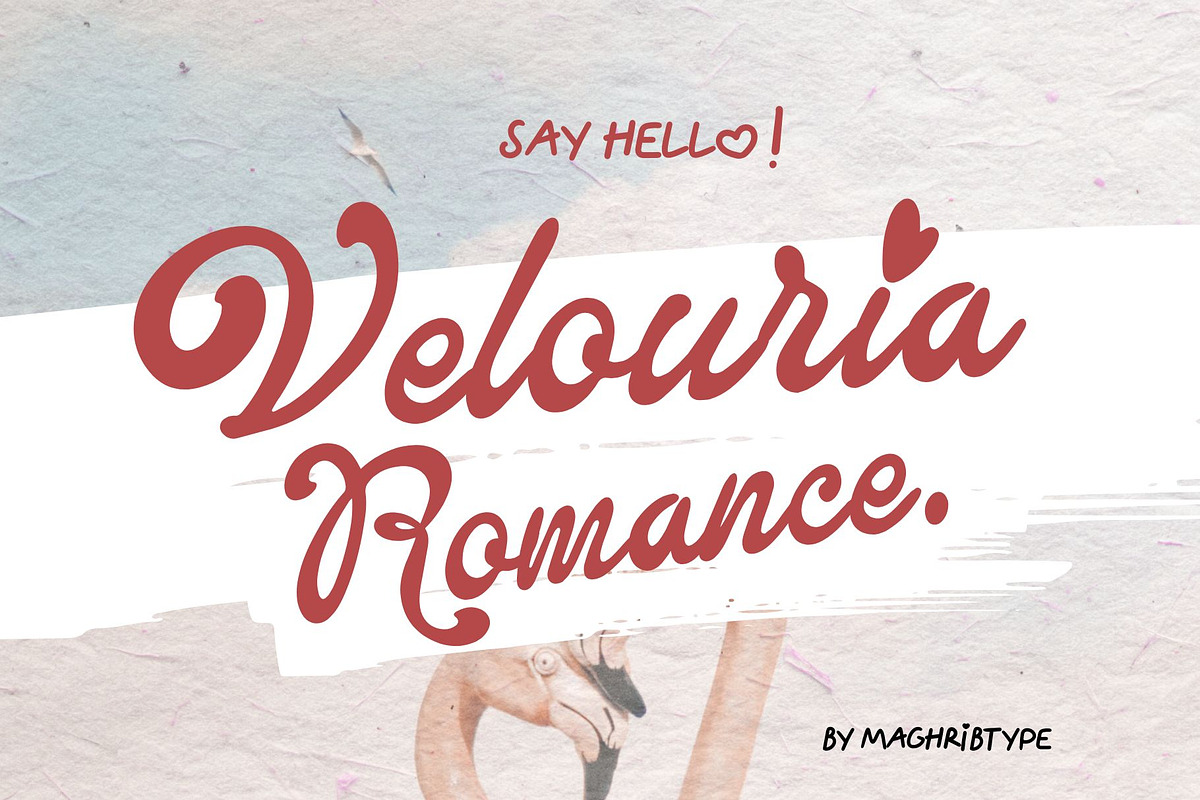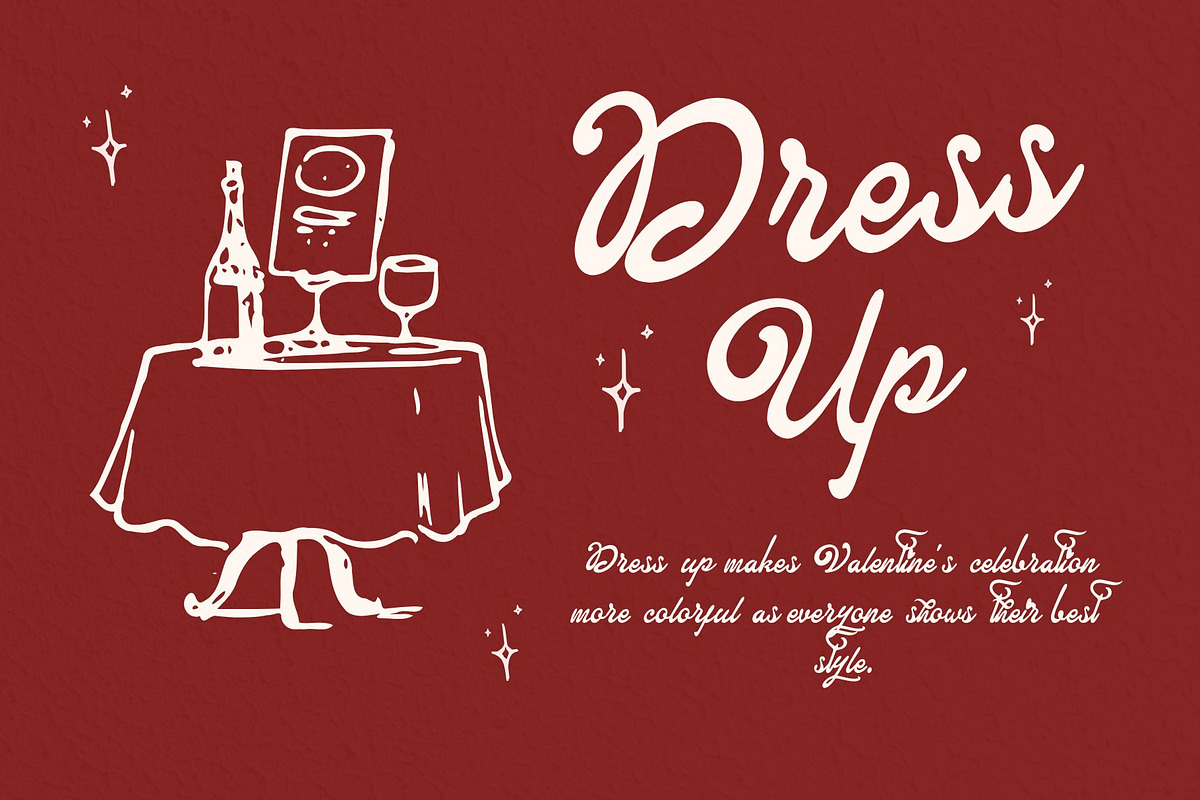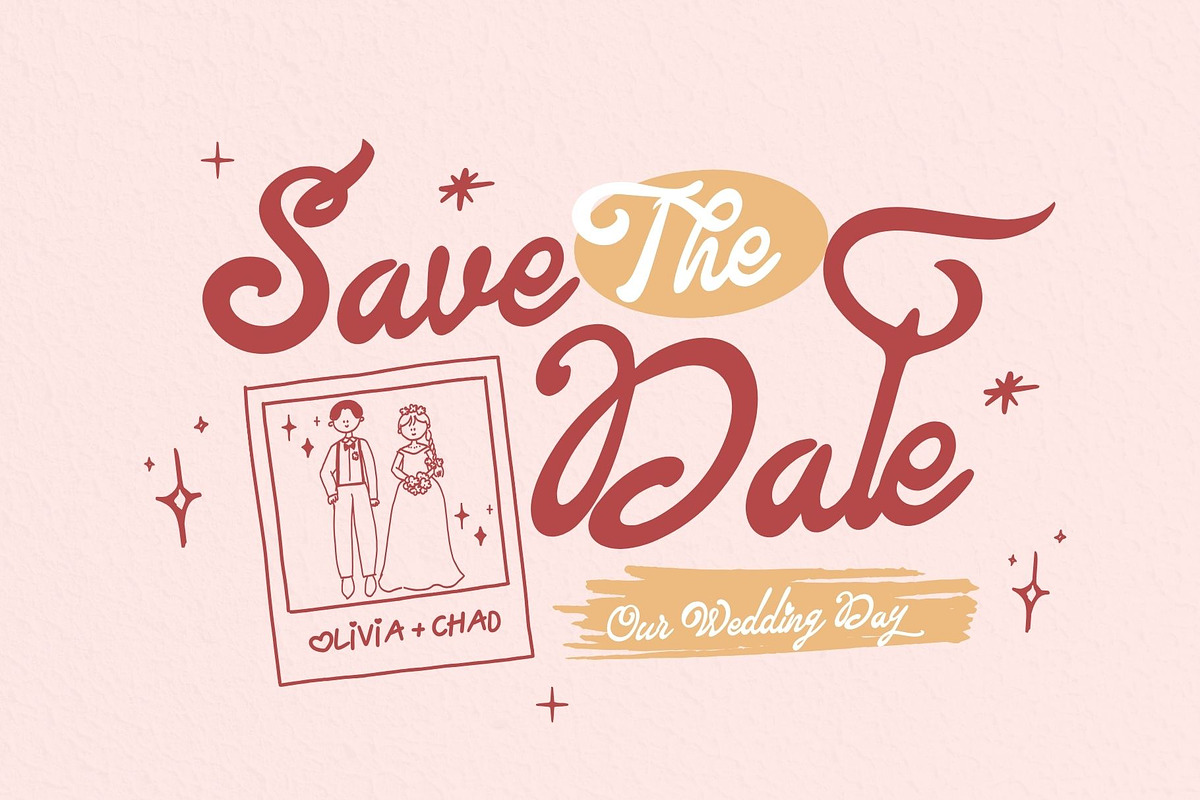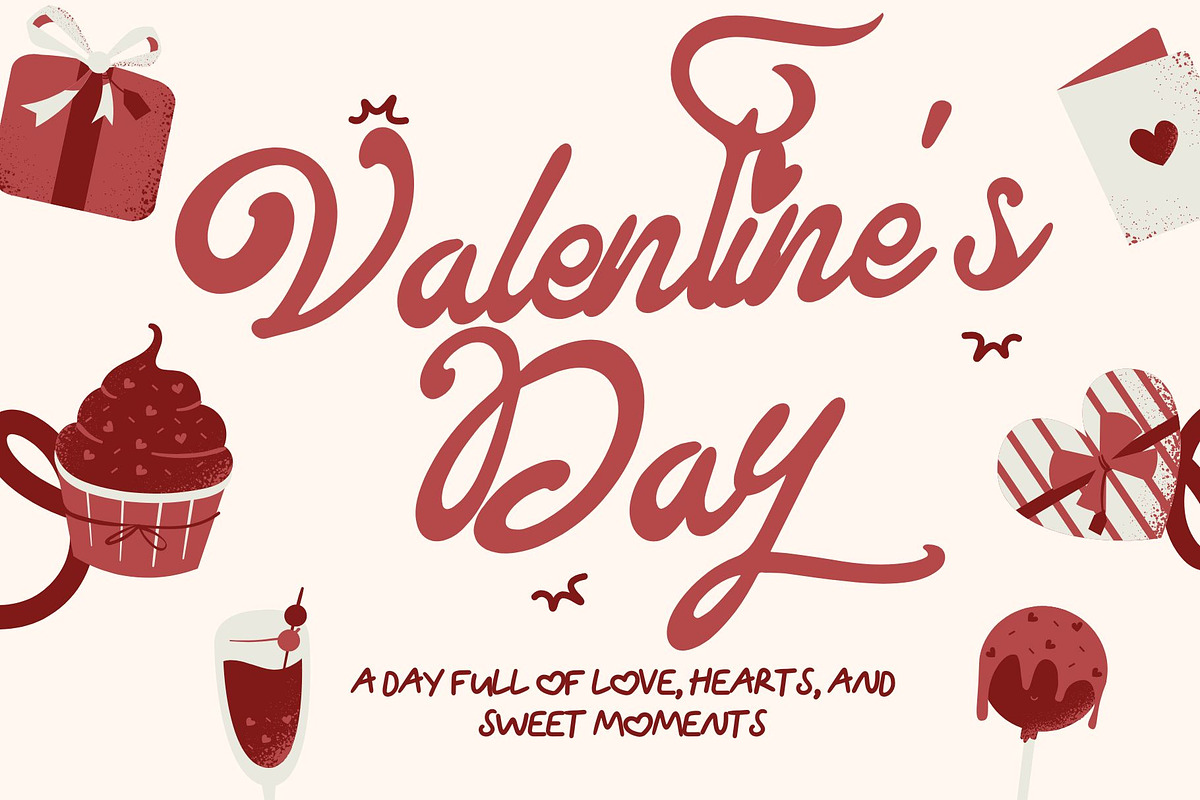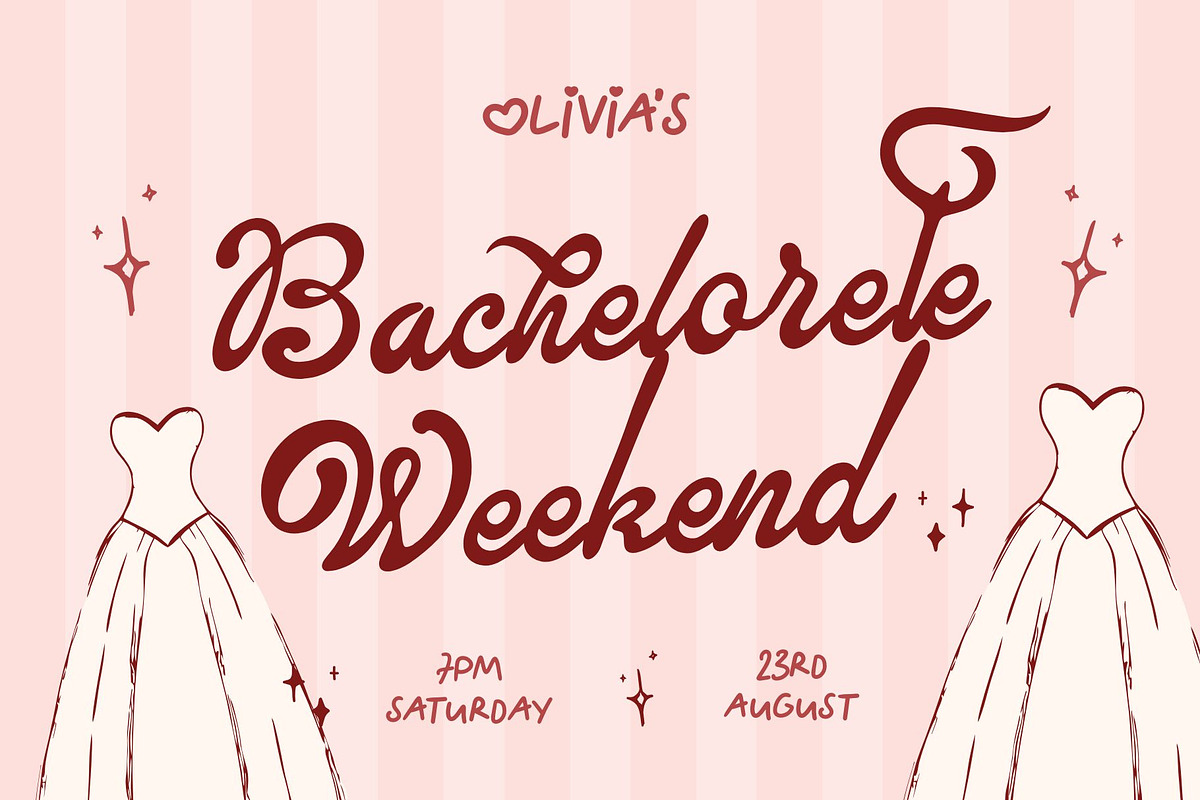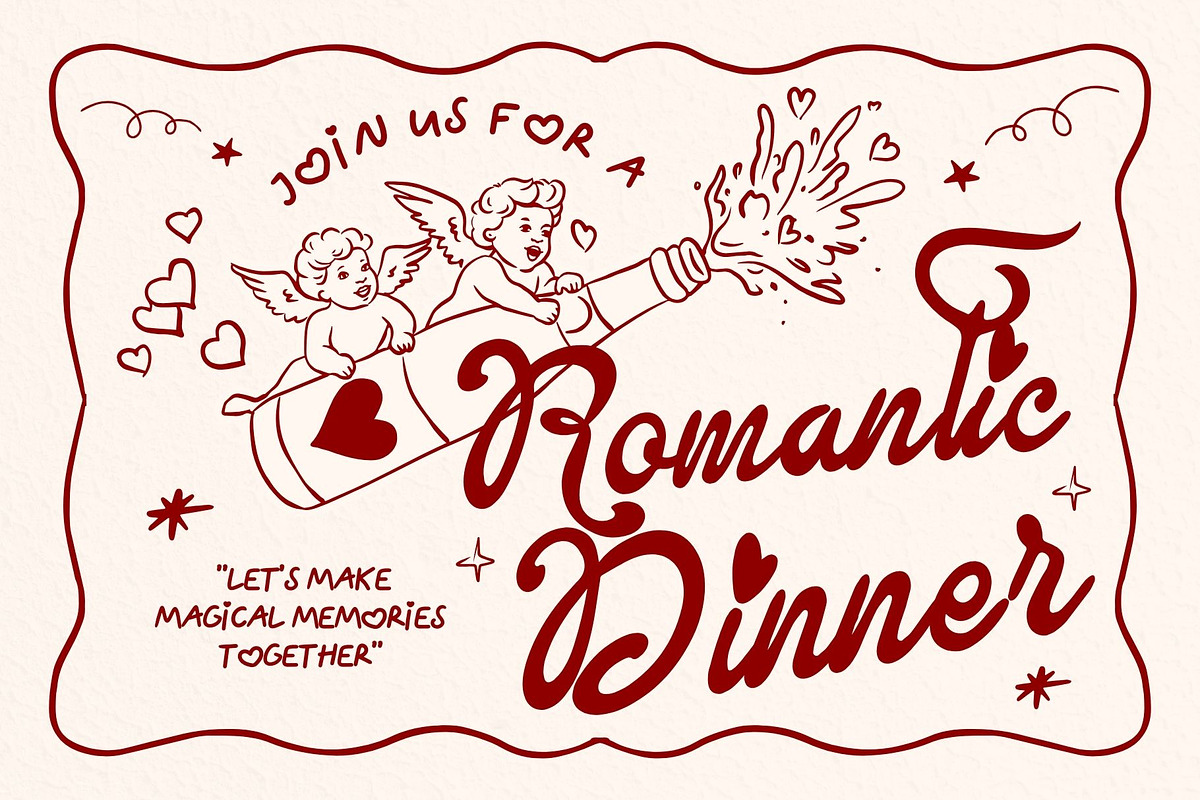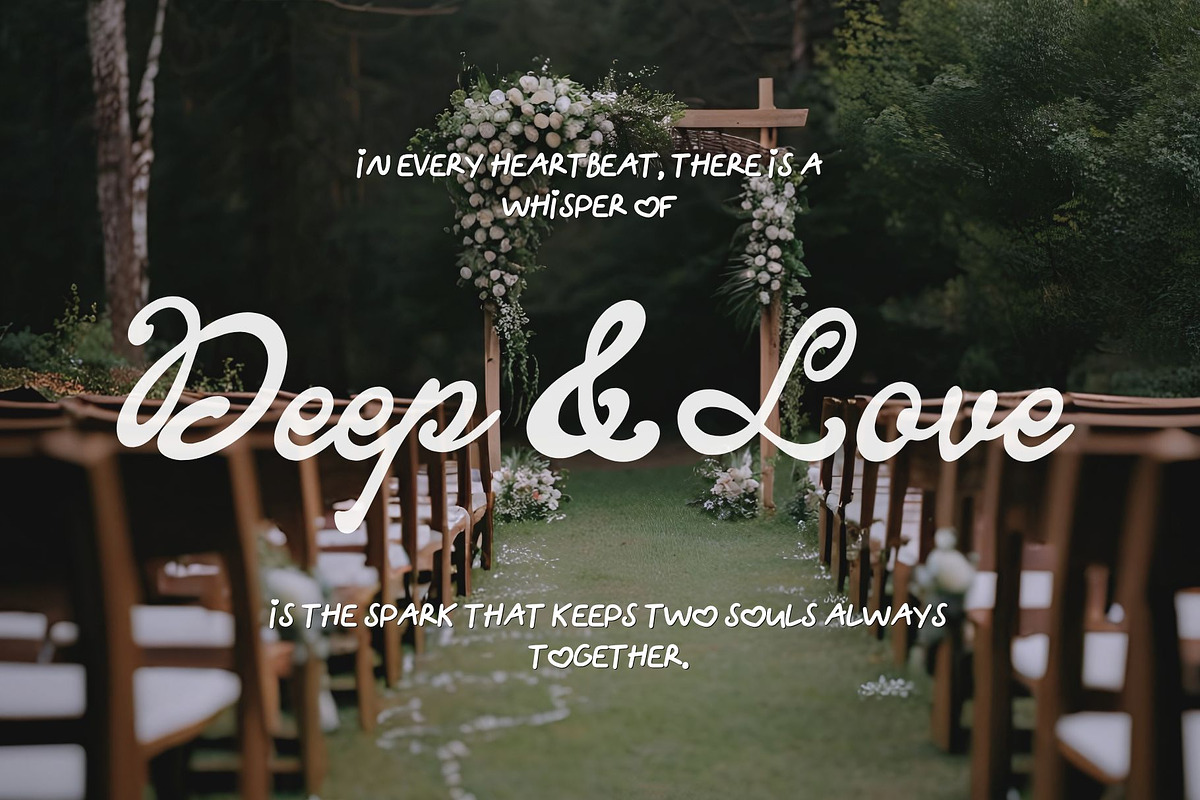
Velouria Romance
Velouria Romance is a charming and elegant script font inspired by timeless love stories and Valentine sweetness. With its smooth flowing strokes, playful swashes, and romantic curves, this typeface brings a warm handwritten feeling that feels both classic and modern.
Perfectly designed for love-themed projects, Velouria Romance is ideal for:
-Valentine’s Day designs -Summer romance branding -Movie titles and cinematic posters -Wedding invitations and greeting cards -Packaging, labels, and product branding -Social media quotes and feminine logos
This font captures the spark of deep love, sweet moments, and heartfelt beauty — making every design feel magical, dreamy, and memorable.
Let Velouria Romance turn your words into romance.